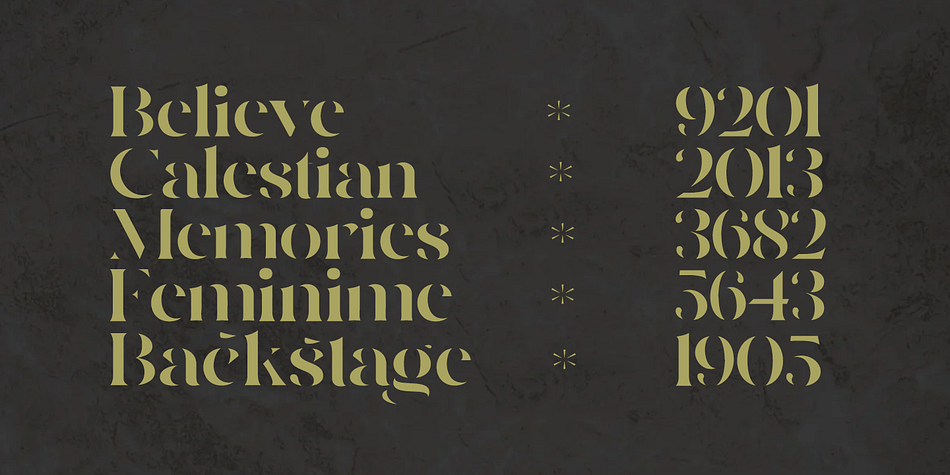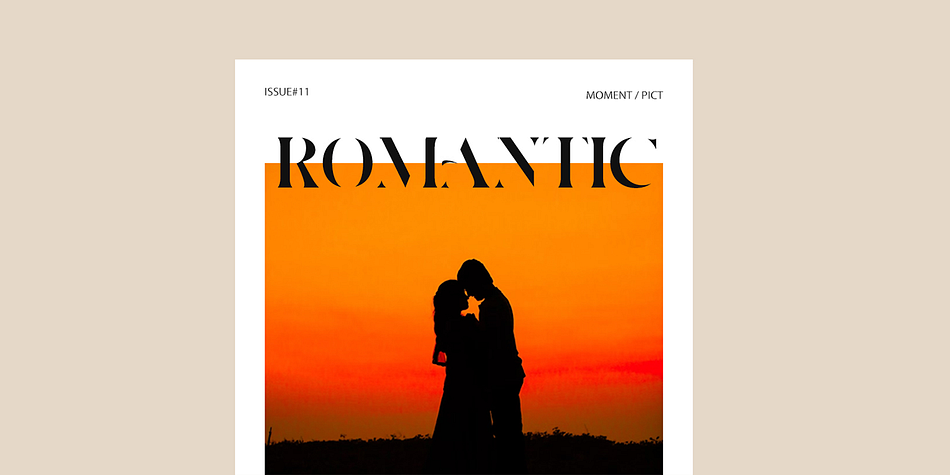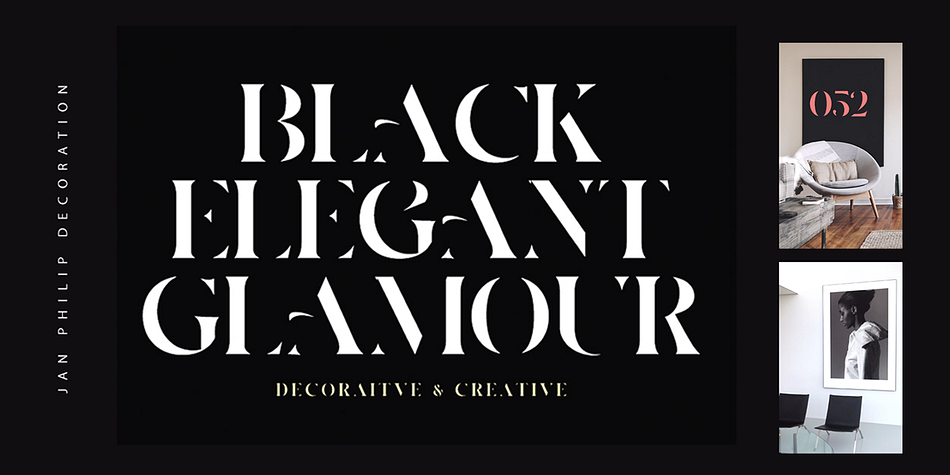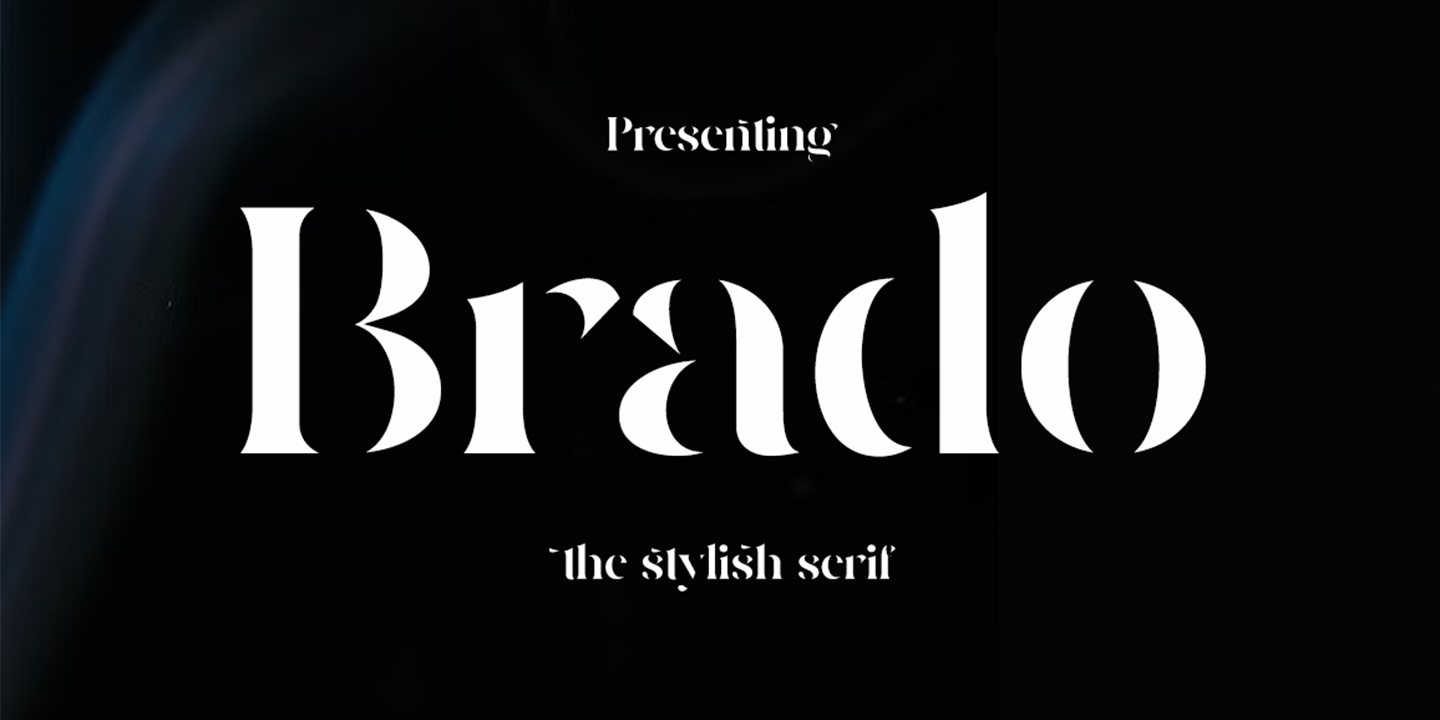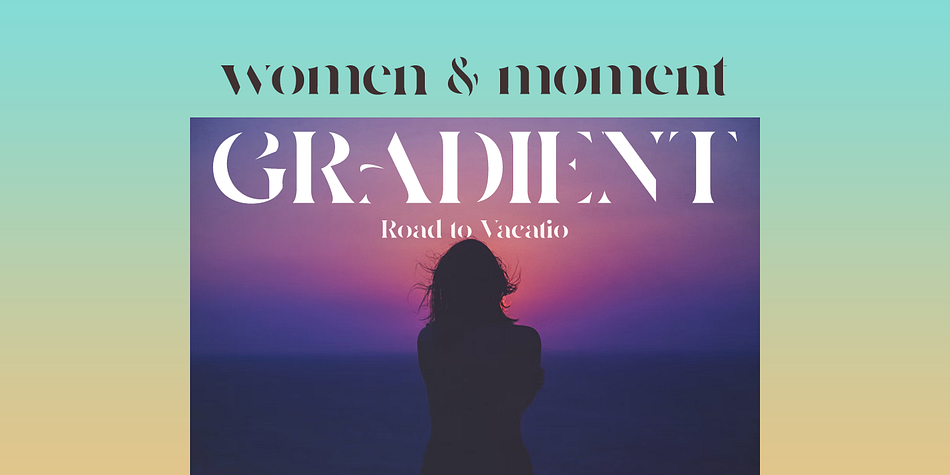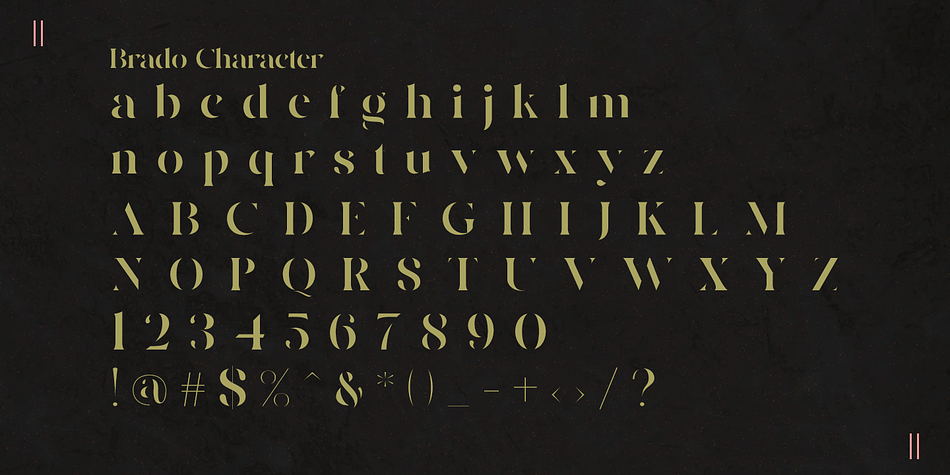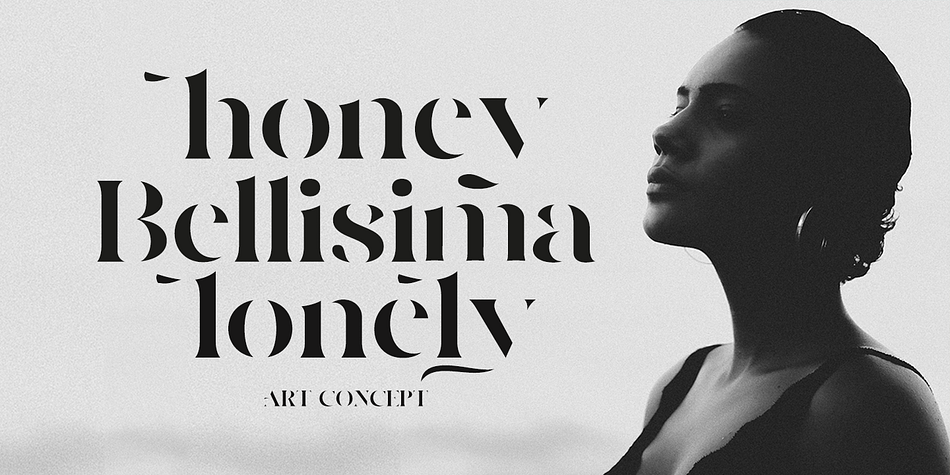
Brado
Brado is a display serif and stencil font family published by Gatype.
Still warm Brado is a Display font, with the highest contrast style. This font is inspired by the typography of logo snippets that are complicated in creating products, this is where we provide a font that is easy to mix to create logos and other products, and you can get a modern feel by removing unnecessary details and adding stencil elements to it.
Perfect for branding, packaging, headlines, posters, presentations, short texts.
Styles Display Serif, Stencil